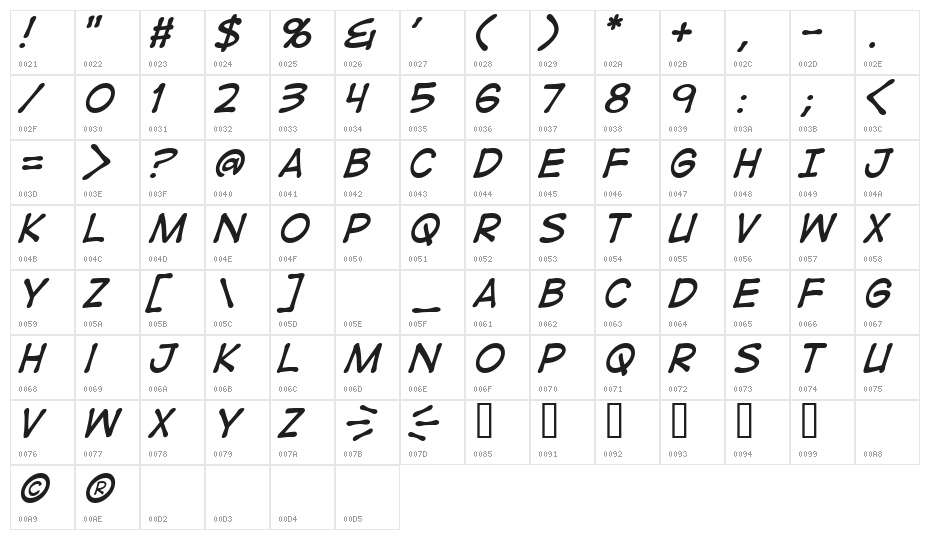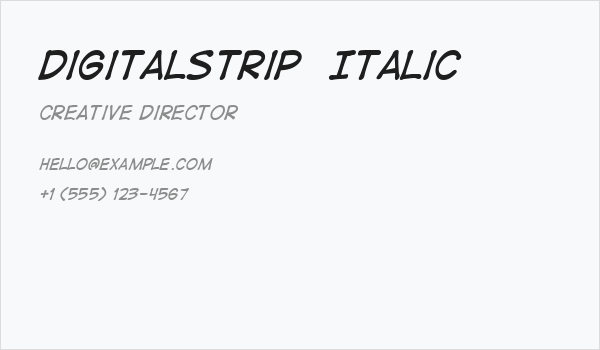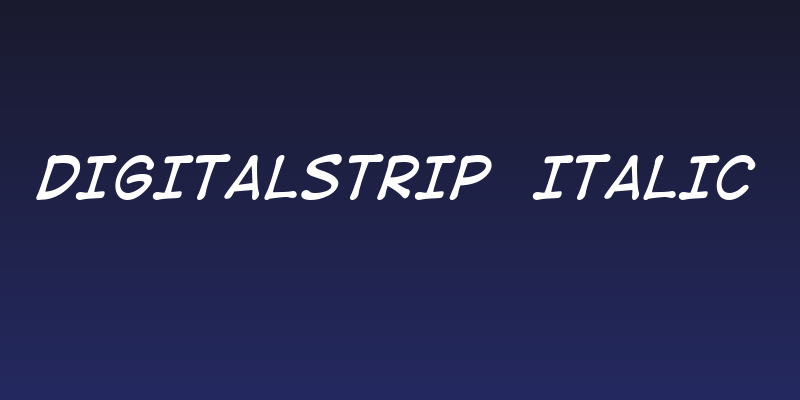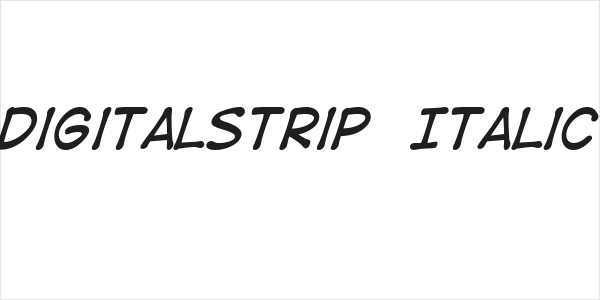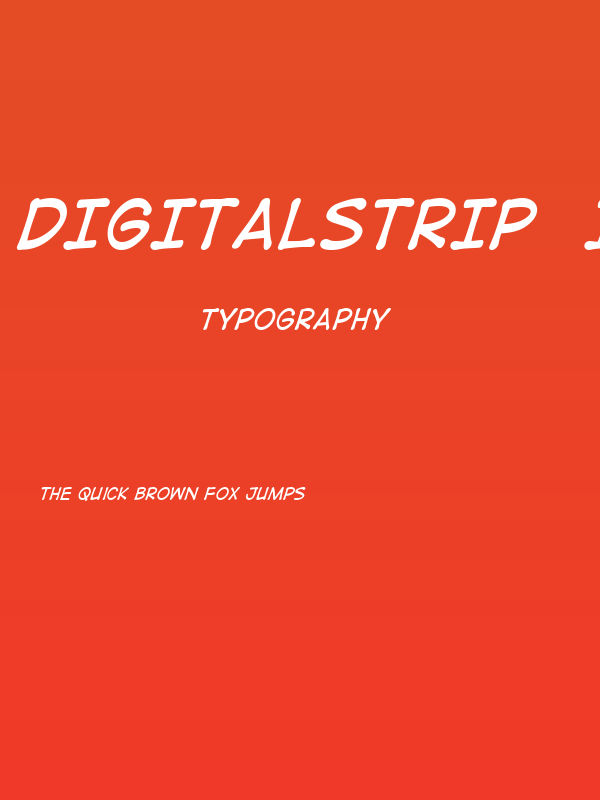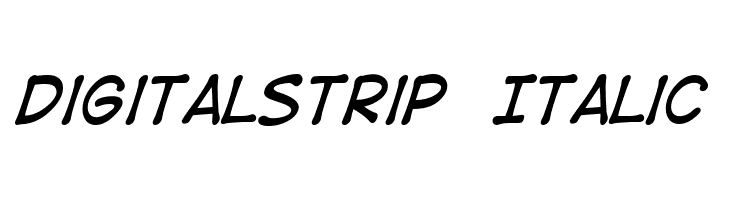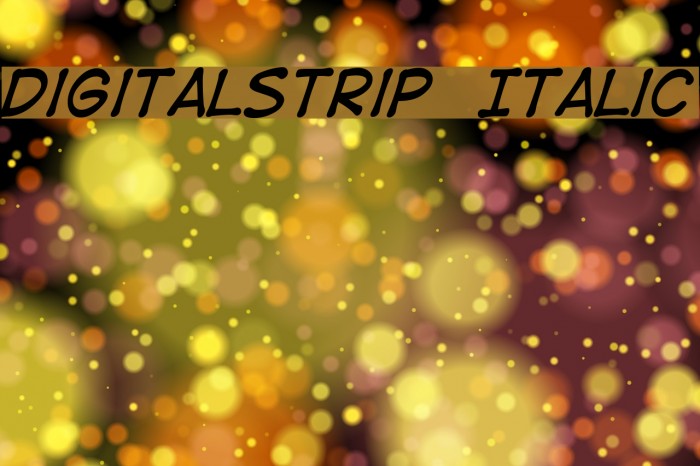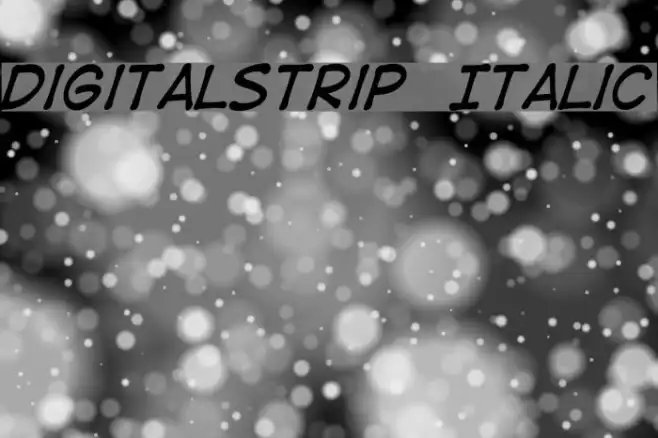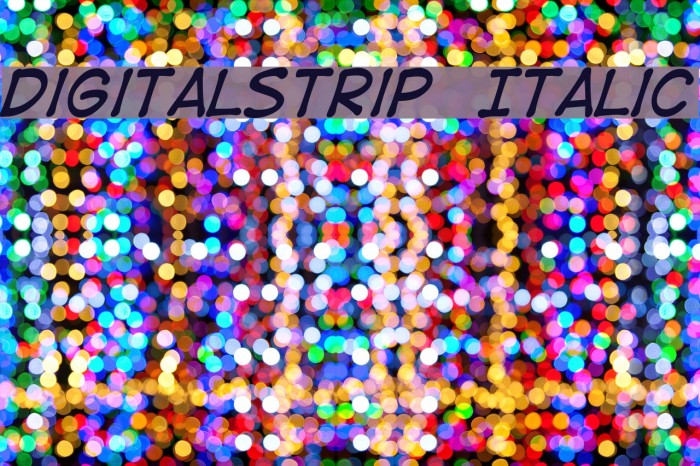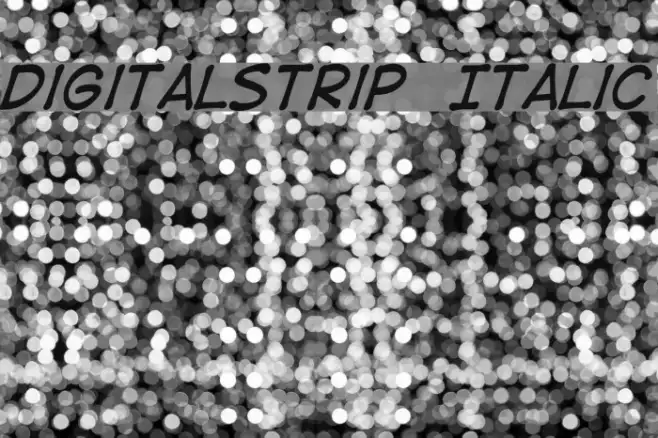
DigitalStrip Italic Font
DigitalStrip Italic Description
This font features a dynamic and energetic style with a handwritten appearance. The characters are slightly slanted, giving it an italicized look that adds a sense of motion and fluidity. The strokes are smooth and consistent, with rounded edges that contribute to its approachable and friendly feel. The uppercase and lowercase letters maintain a uniform height, while the numbers and special characters are designed to complement the overall aesthetic. This font is versatile, suitable for both casual and professional settings, and can effectively convey a sense of creativity and informality.
| Use Case | Logos, Headlines, Informal text |
| Proposed Projects | Ideal for greeting cards, invitations, personal branding, and creative projects. |